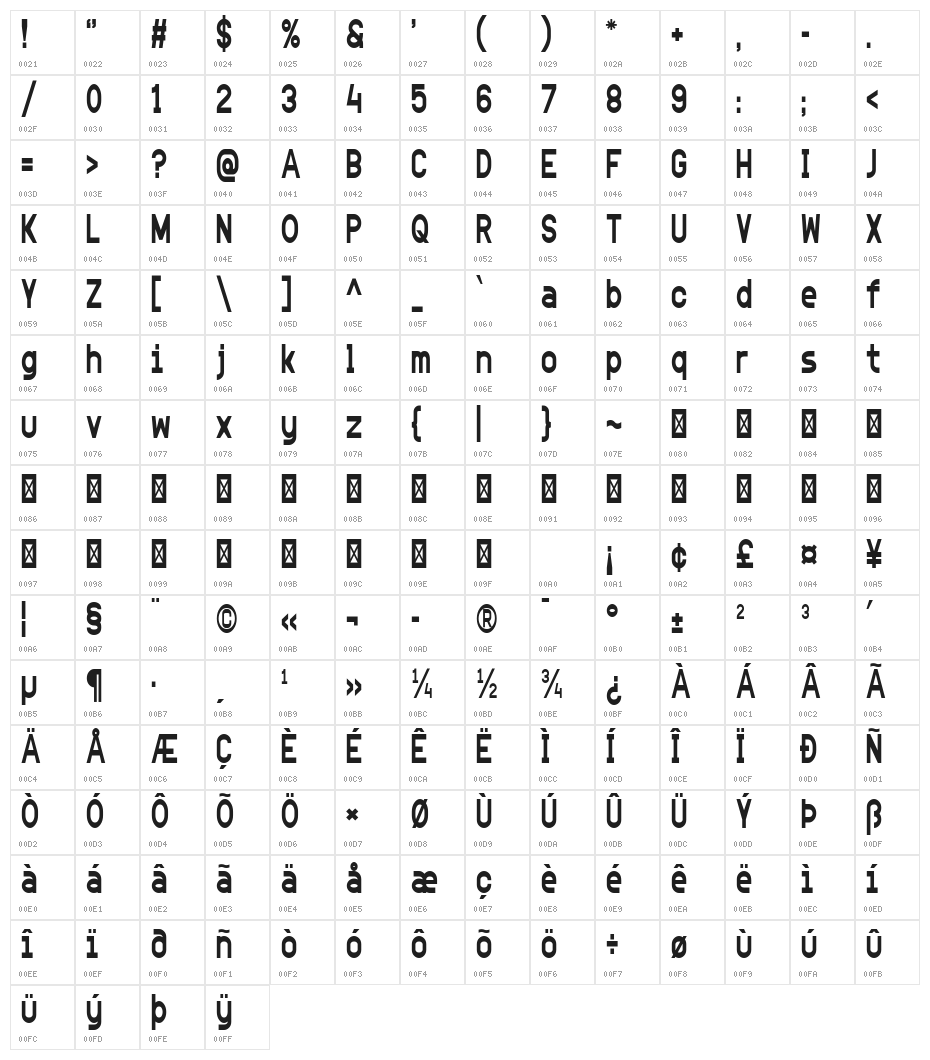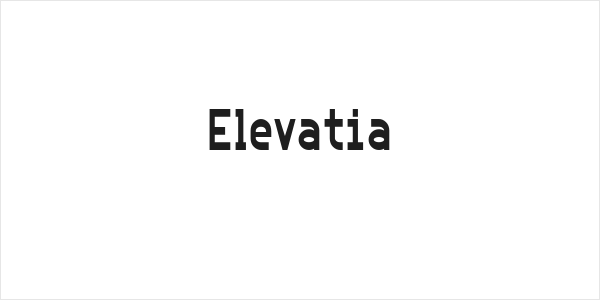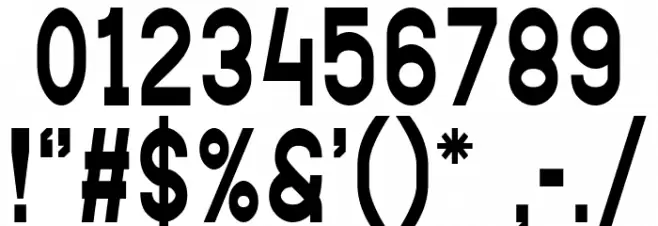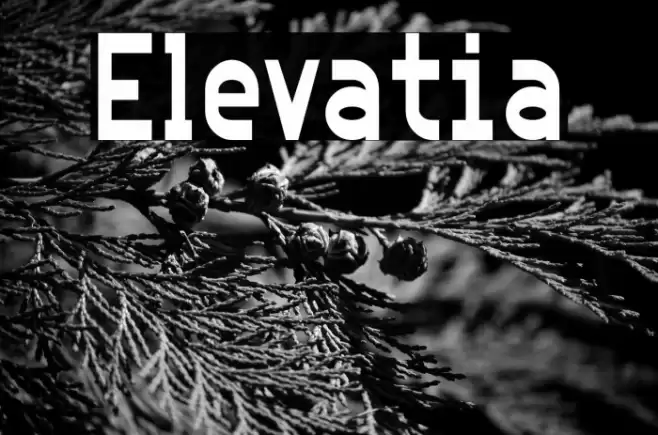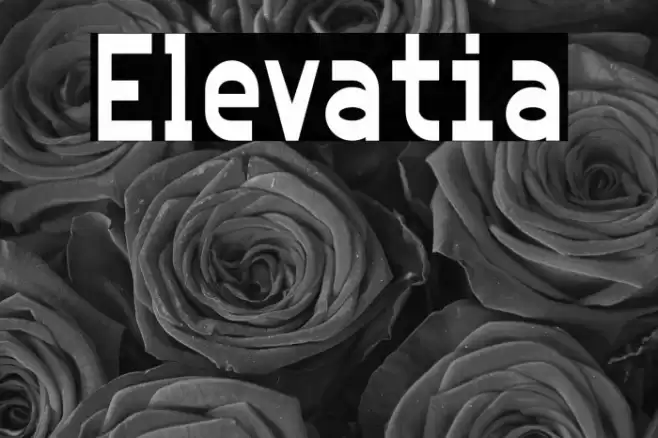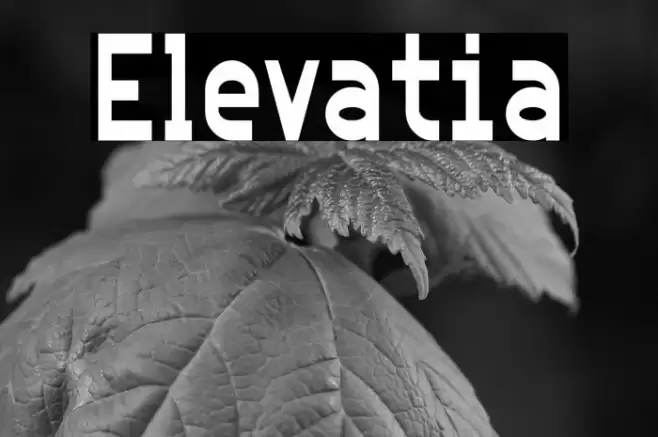
Elevatia Font
Elevatia Description
This font exhibits a bold and modern aesthetic with clean, geometric lines and a strong presence. The uppercase and lowercase letters are well-proportioned, with a consistent stroke width that gives it a uniform appearance. The numerals are clear and easily distinguishable, making them suitable for various applications. Special characters are included, maintaining the font's cohesive style. The overall design is straightforward yet impactful, making it versatile for different design needs.
| Proposed Projects | Ideal for branding, headlines, posters, and digital media where a strong, modern look is desired. |